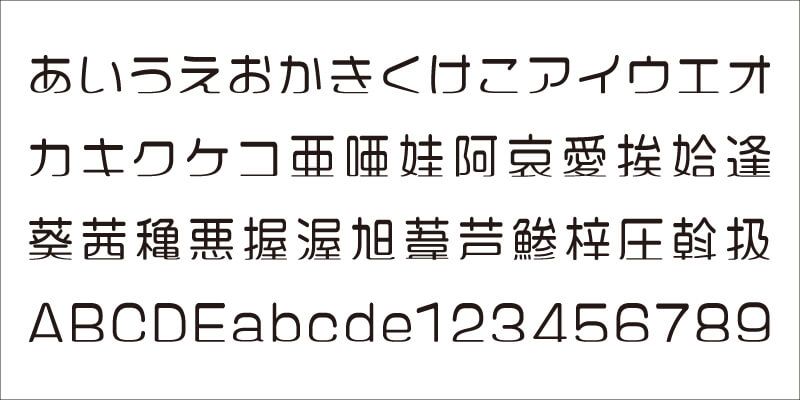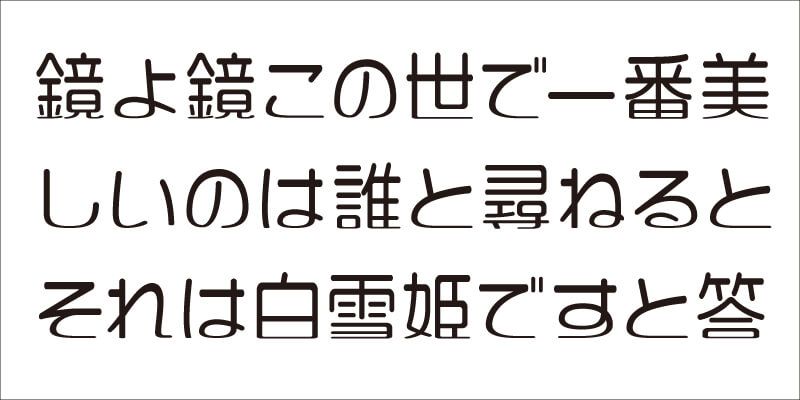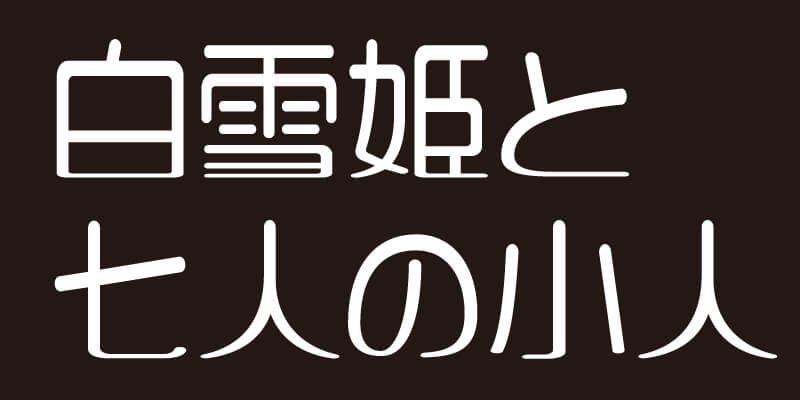
Like a lovely princess or a dwarf rolling around, VDL-PetaG has a friendly atmosphere. The main design concept is “Short legs and a long torso”. The lower the vertical position of a horizontal bar, the thinner the stroke width becomes. The upper parts of a character tend to have wider spaces between strokes, while the lower parts look vertically compressed. Playful and pleasant expressions can be made without compromising readability.